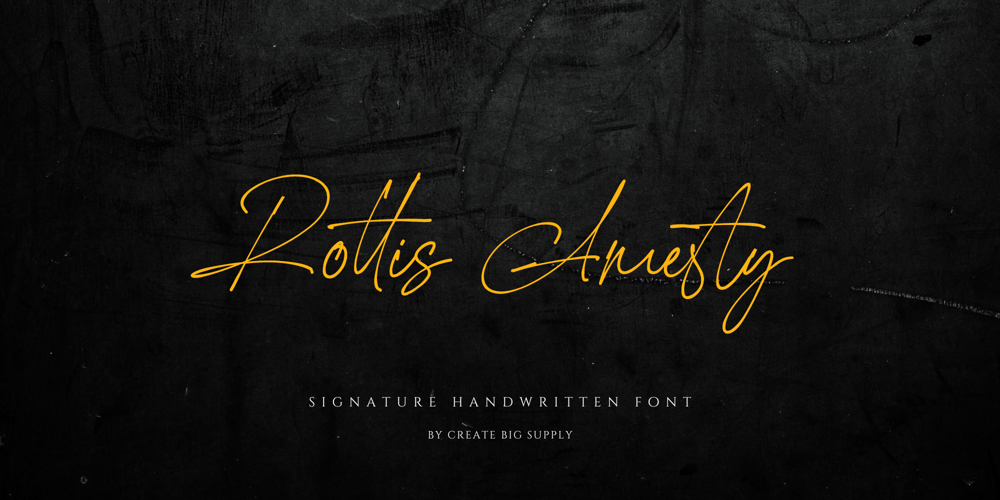
Rottis Amesty Font Family was designed by Irpan Maulana and published by Create Big Supply. Rottis Amesty contains 1 styles and family package options. Experience the authentic charm of Rottis Amesty, a captivating Signature Handwriting Script Font that mirrors the natural flow of handwritten text with the subtle nuances of a ballpoint pen. With its unique ballpoint effects, Rottis Amesty adds a touch of elegance to your projects, making it perfect for signatures, logos, and various design endeavors. This font features both uppercase and lowercase letters, numbers, and punctuations, providing versatility for your creative expressions. Its multilingual support ensures seamless communication across different languages, while the PUA encoding allows easy access to special characters and ligatures. Download Rottis Amesty Signature Handwriting Script Font now and infuse your designs with personalized handwritten style.